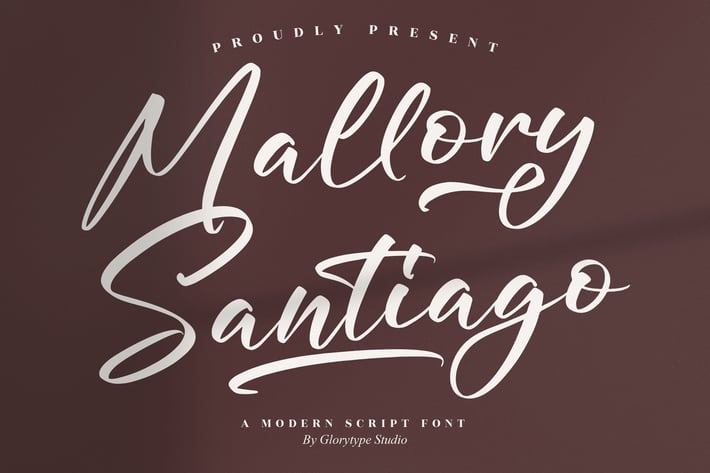
Mallory Santiago Script Font
Mallory Santiago is a modern signature script with tall, elegant letterforms, velvety curves, and sweeping swashes. Its flowing baseline delivers luxe energy for names, logos, and headlines—perfect for wedding suites, beauty & fashion branding, and editorial social posts.
+ Regular & Italic styles for effortless pairing
+ OpenType ligatures & alternates for natural handwriting flow
+ Long swashes for dramatic signatures and endings
+ Smooth curves with refined kerning for clean results
+ Signature logos & personal branding
+ Wedding invitations & day-of pieces
+ Beauty, fashion & lifestyle packaging
+ Social media graphics & reels covers
+ Quote posts & posters
+ Blog headers & website hero text
+ Business cards & thank-you cards
+ Photo watermarks & editorials
Write it like a love note—bold, polished, unforgettable.